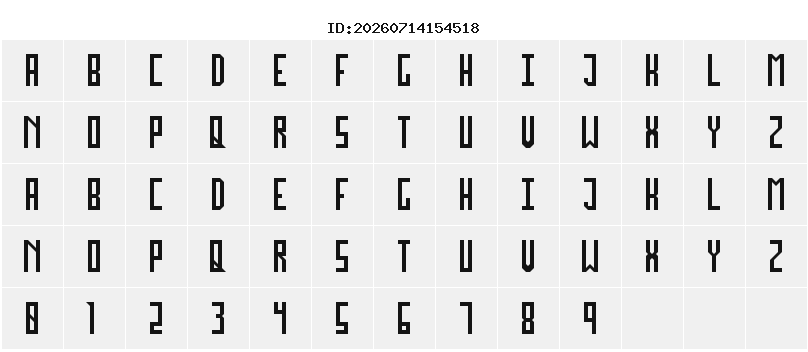
• Font Name: Jacko Mongo
• Designer: candycoatedkafka
• Description: ‚ÄúJacko Mongo‚Äù was built with FontStruct
About Jacko Mongo.ttf
Jacko Mongo.ttf is a modern, elegant sans-serif font designed for ultimate readability and visual harmony. Perfect for branding, headlines, web design, and print materials.